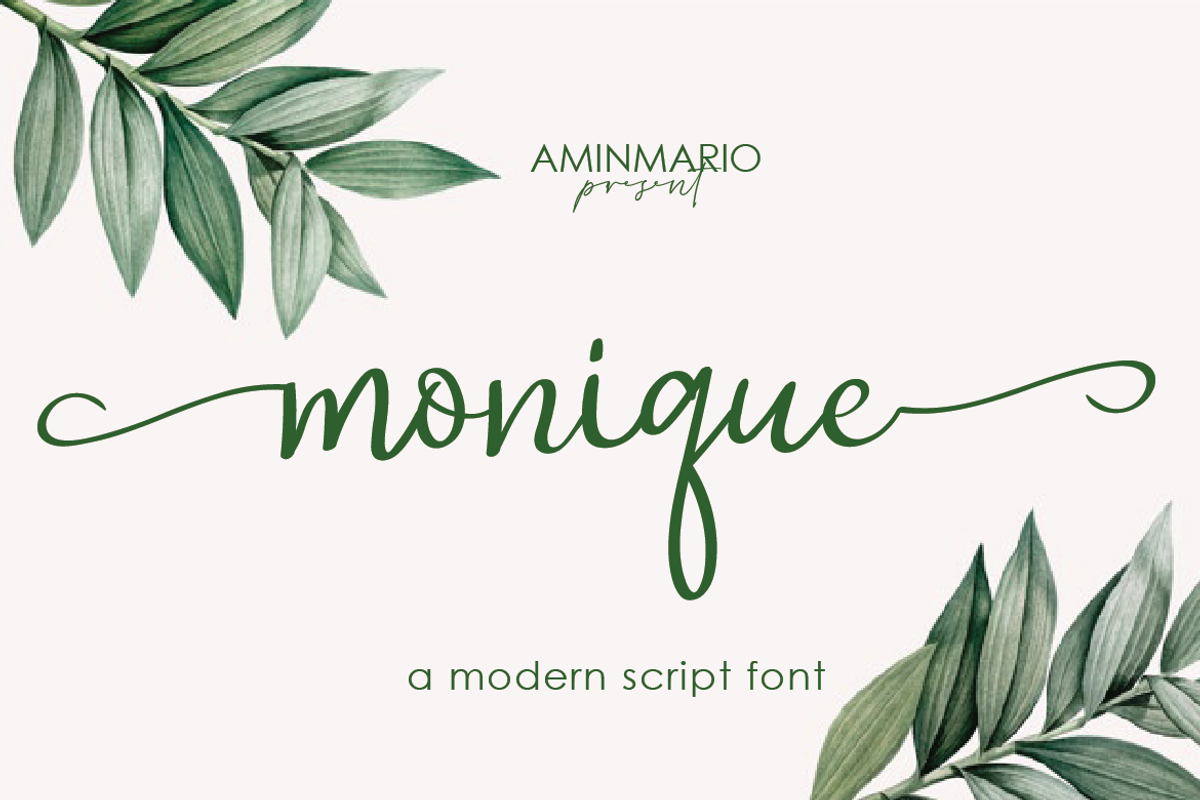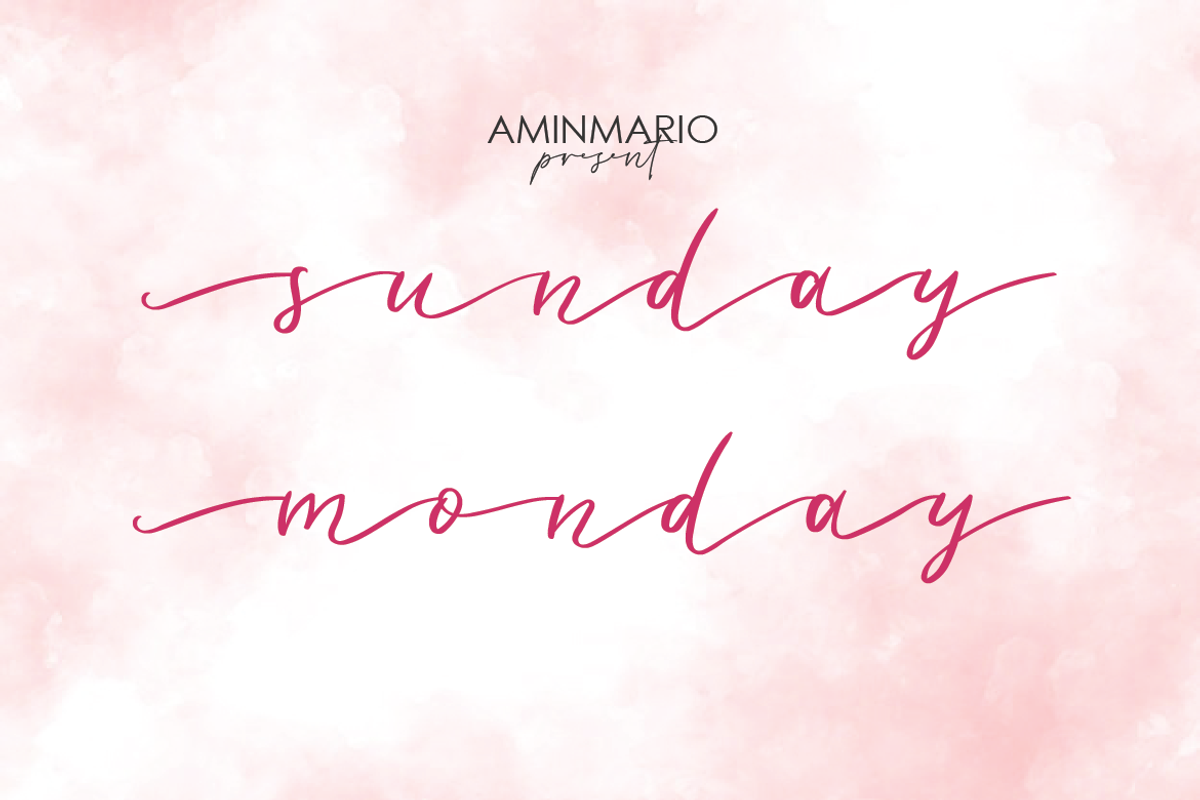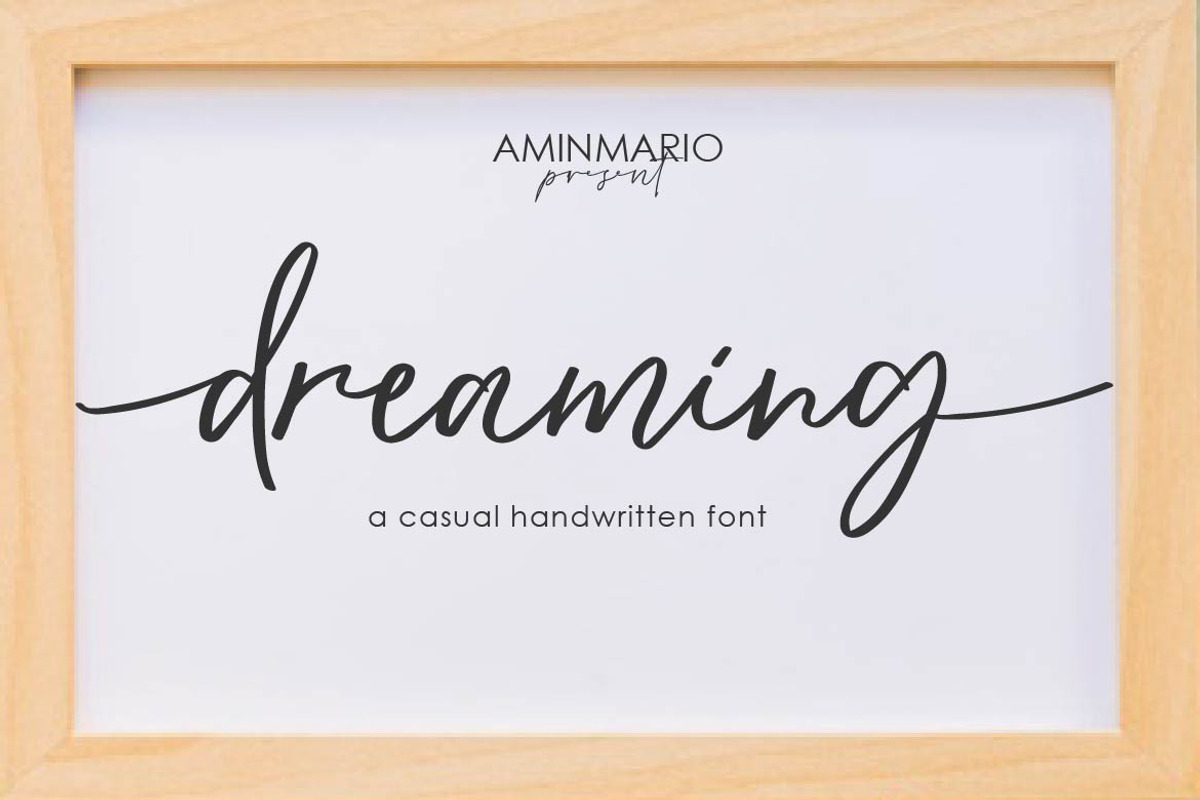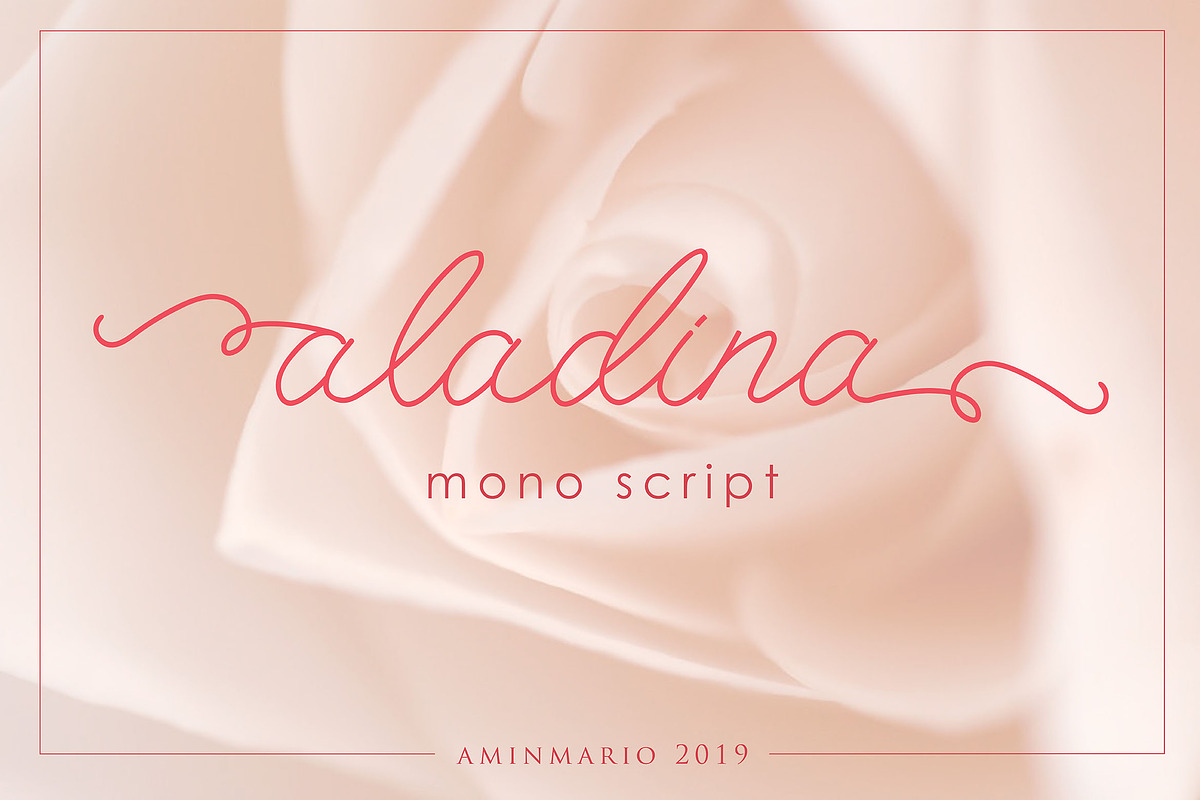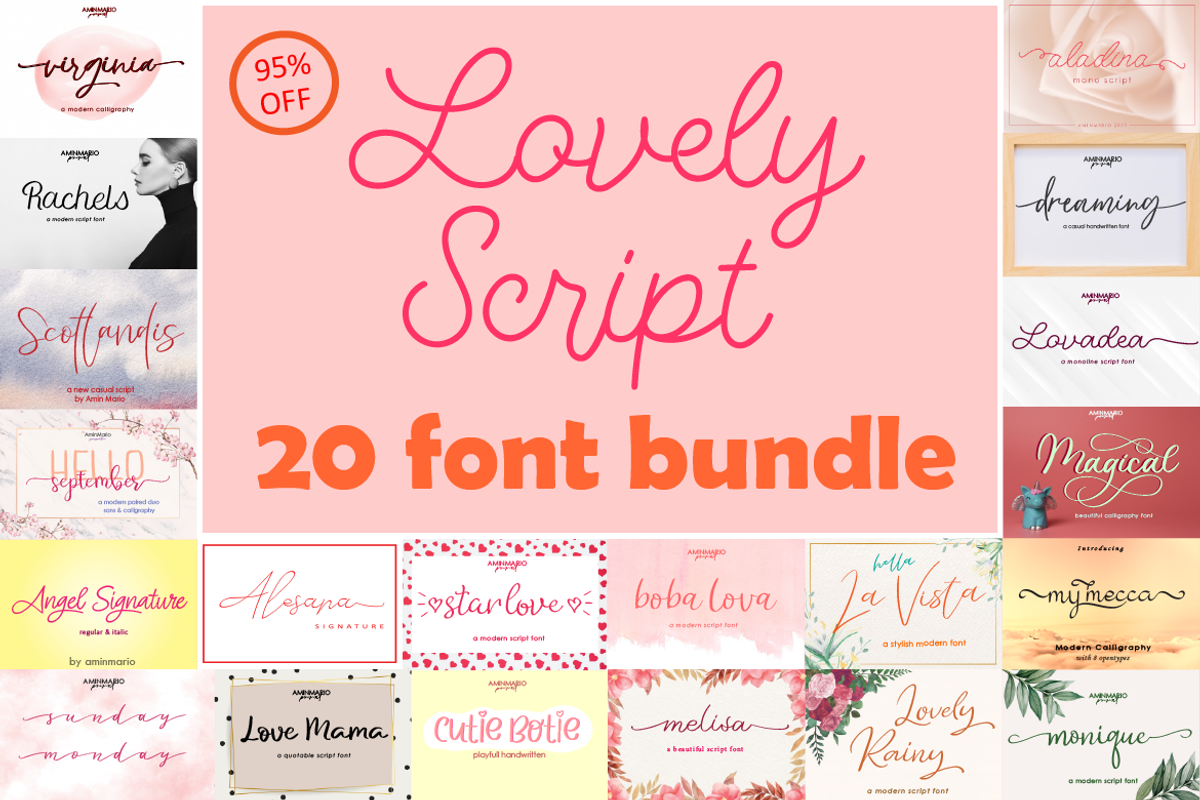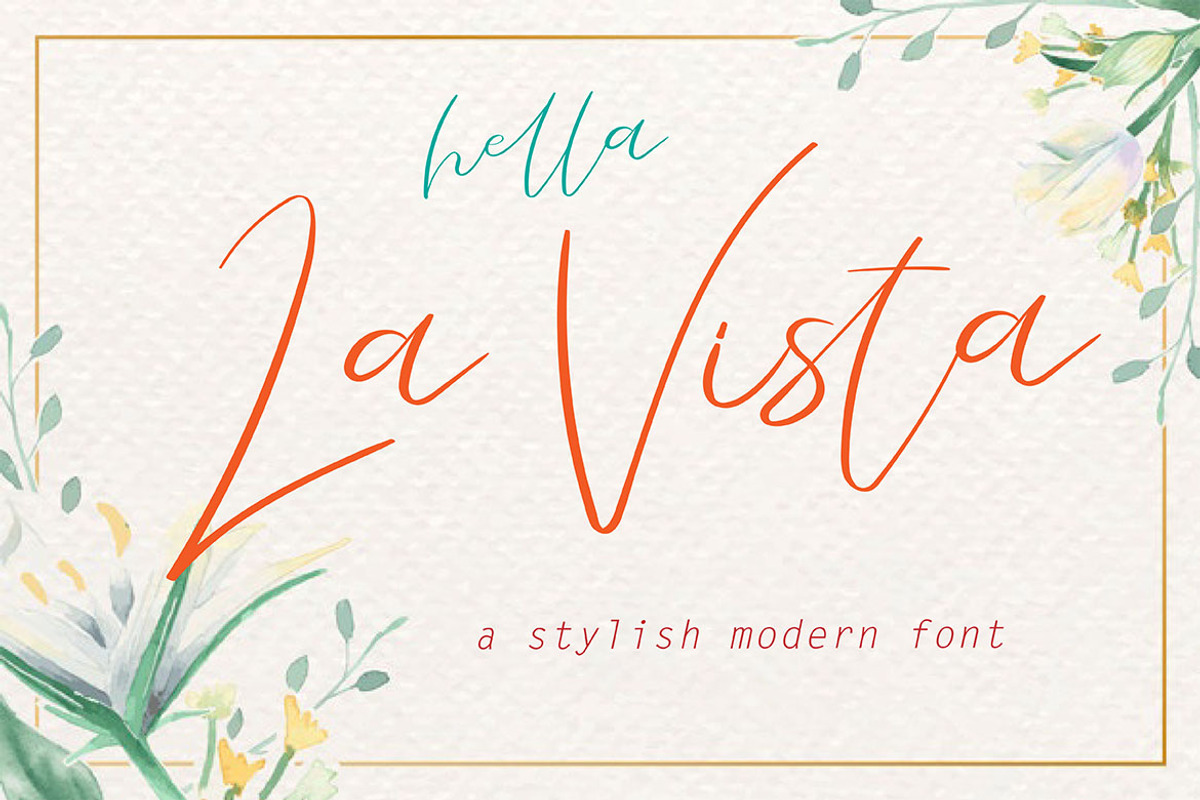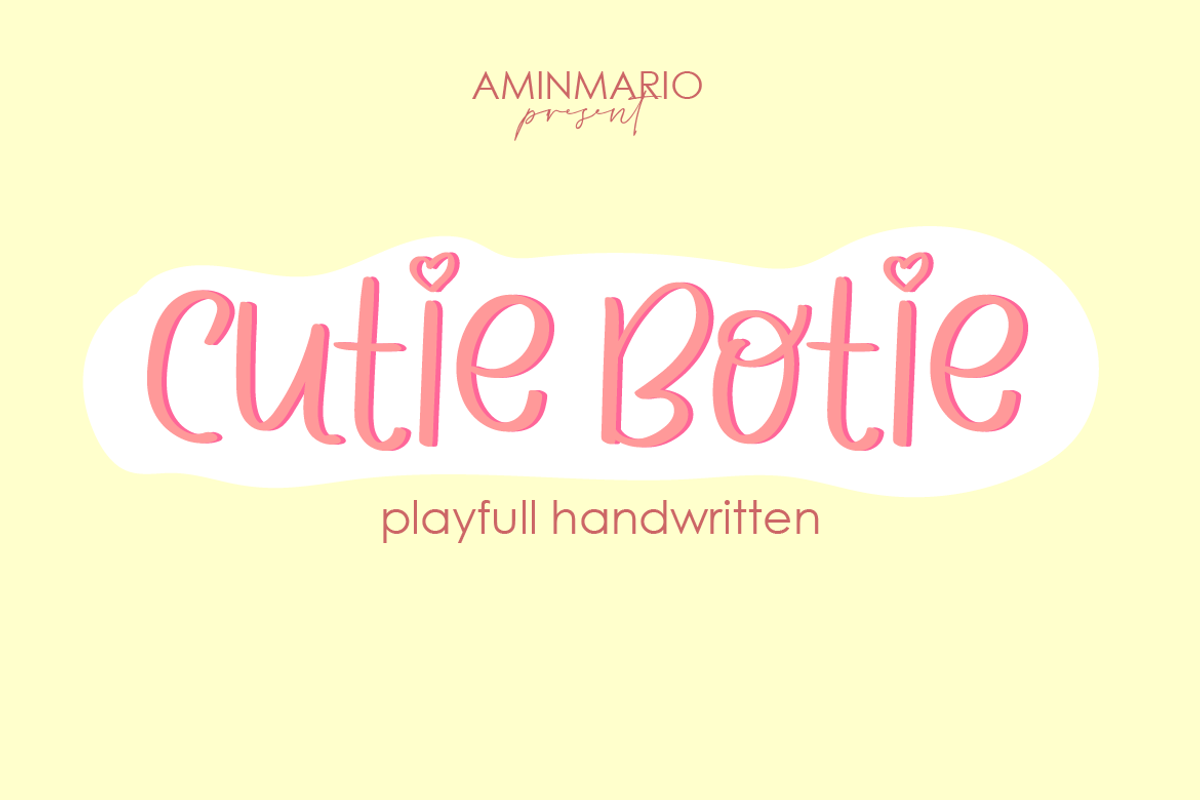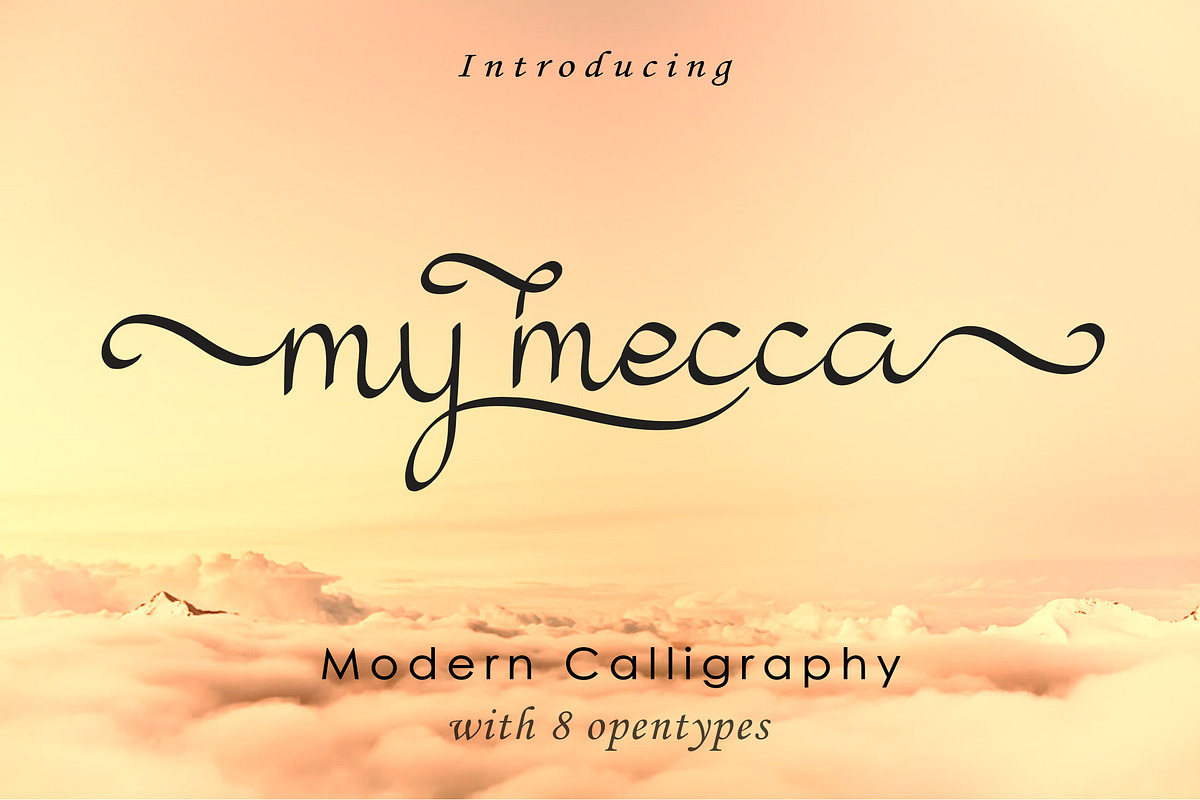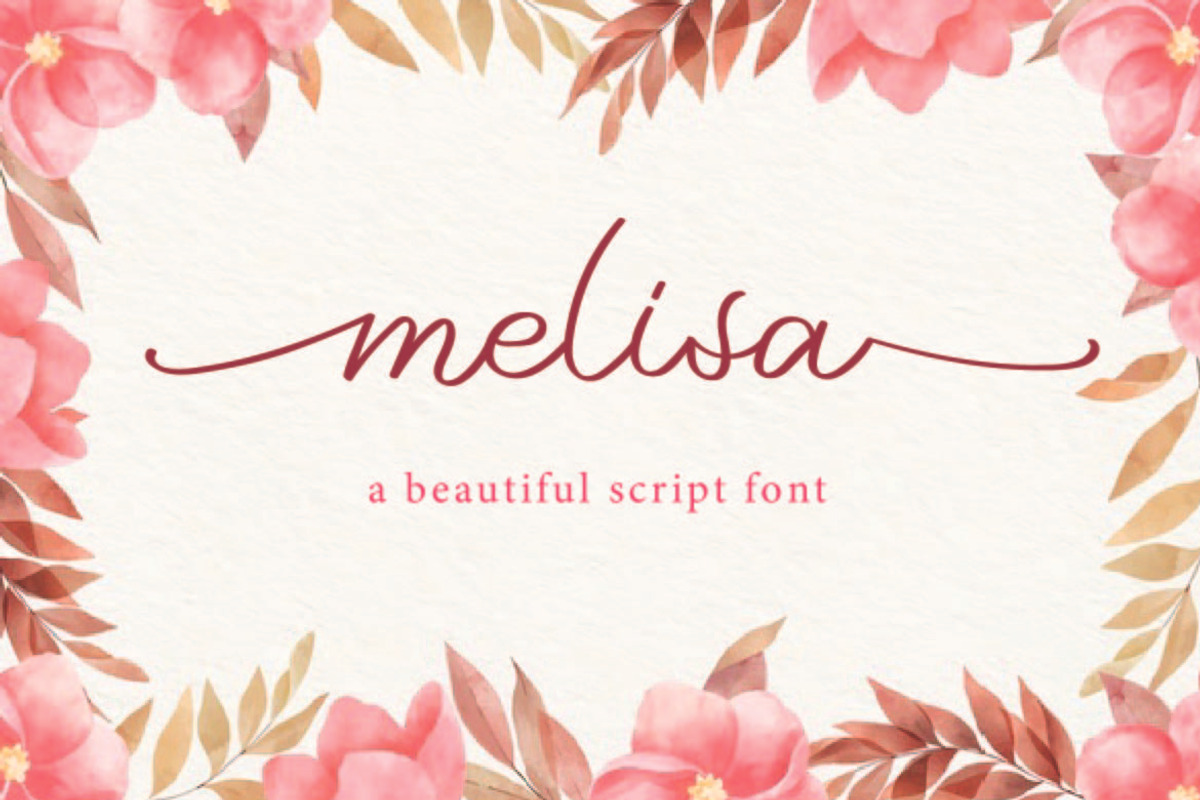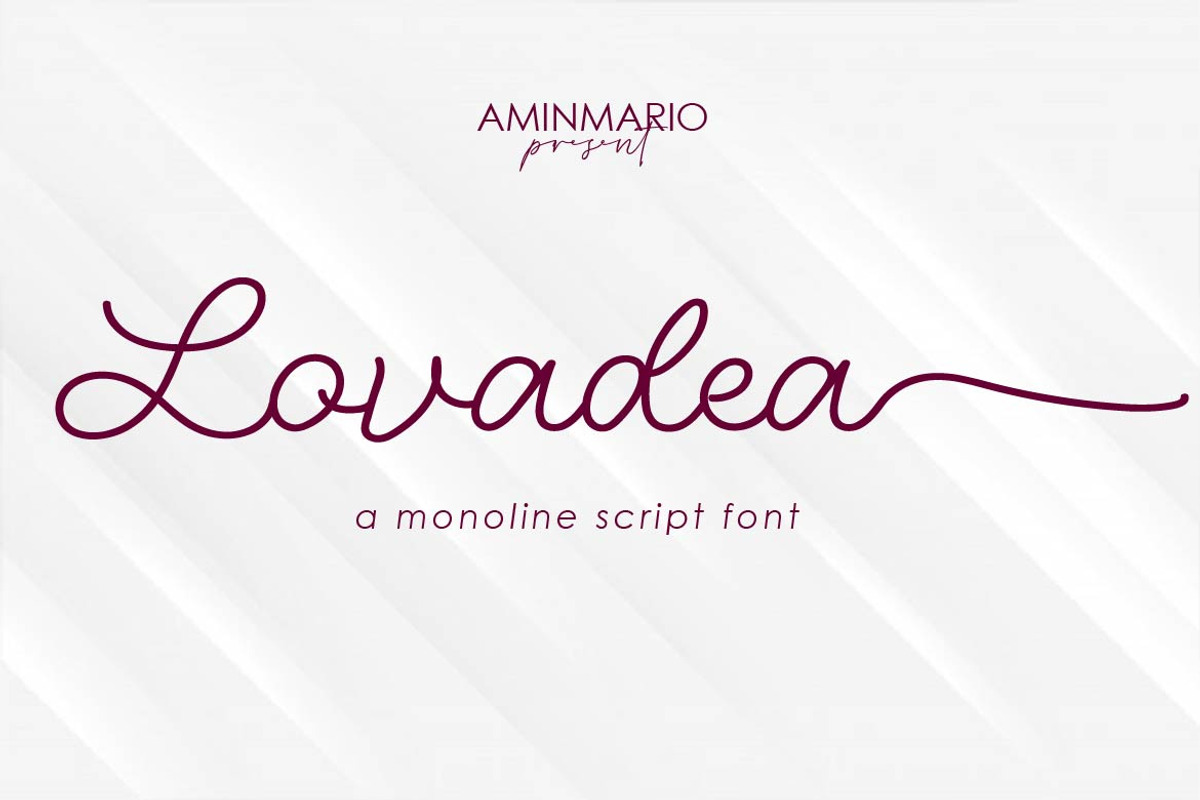
Lovely Script Bundle 20 Fonts
Since a lot of you guys asked me about Lovely Script Font Bundle, I decided to make this amazing bundle with big discount.
This bundle perfect for logos, watermarks on photography, signatures, branding, advertisement, quotes, invitations, stationery, wedding design,album covers, business cards, clothing, magazines, posters, and more!